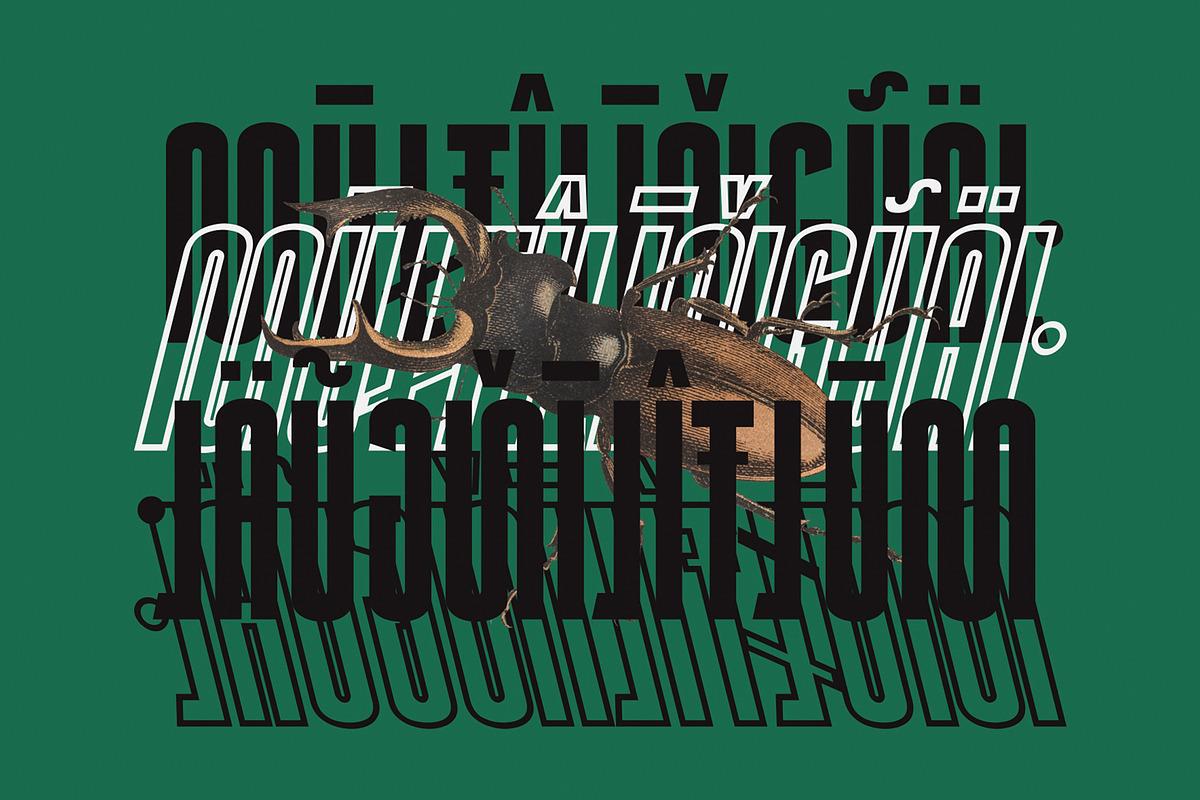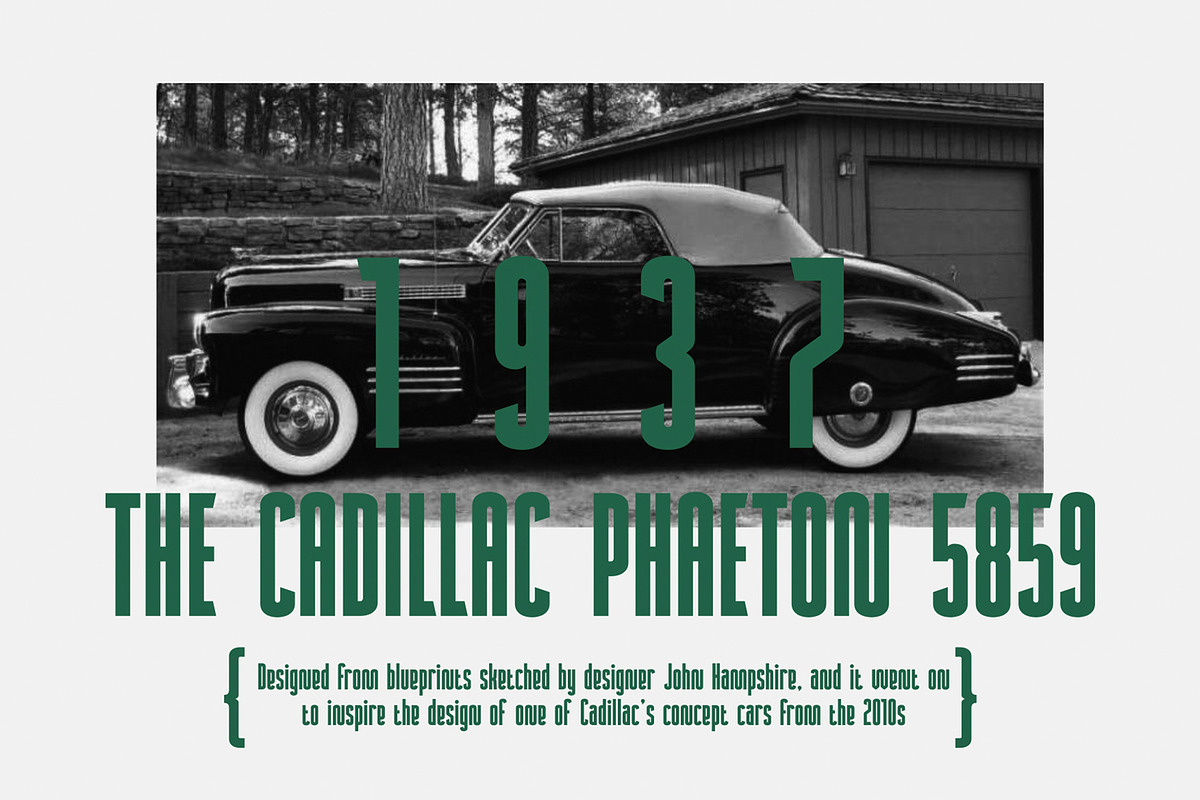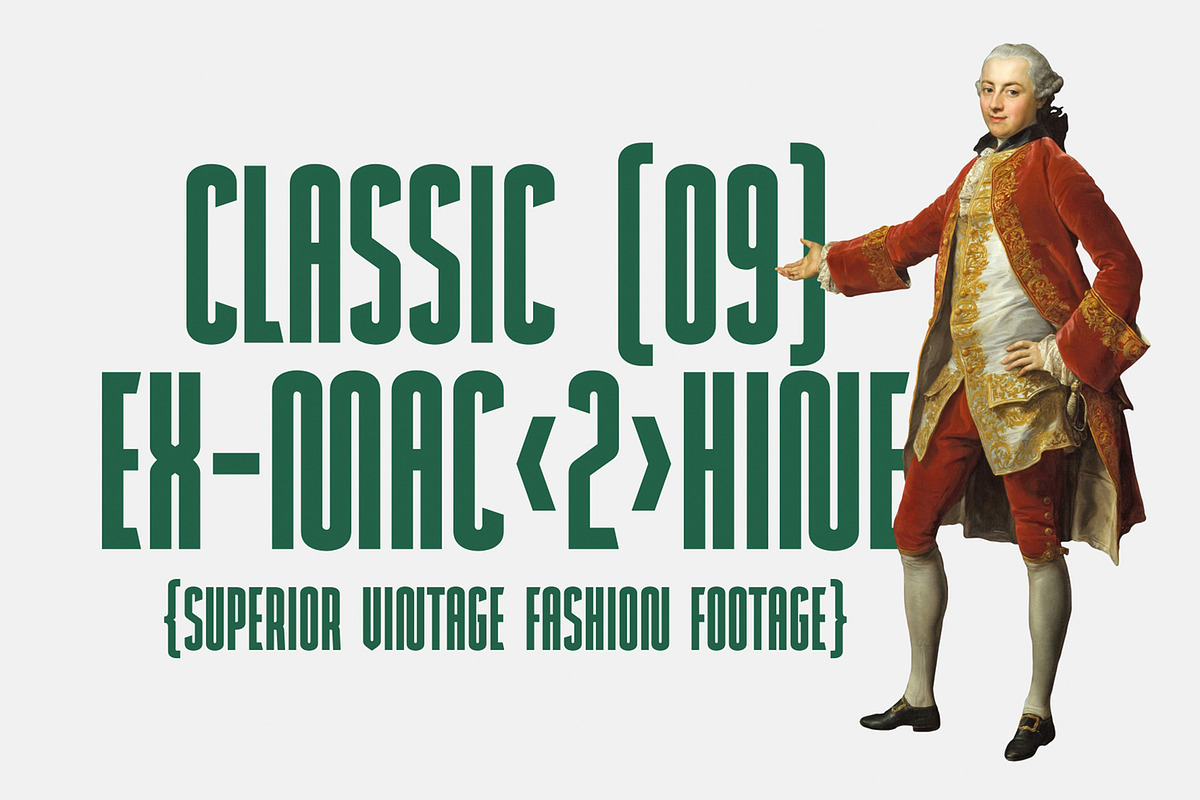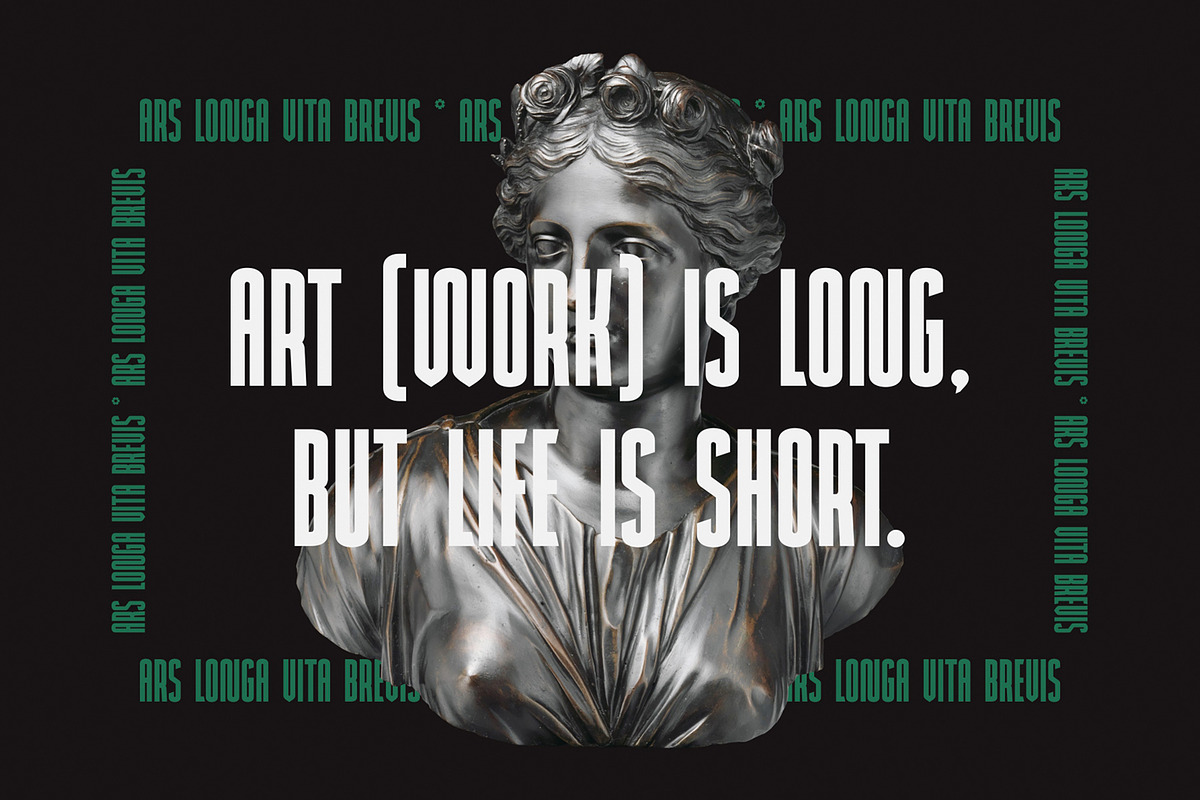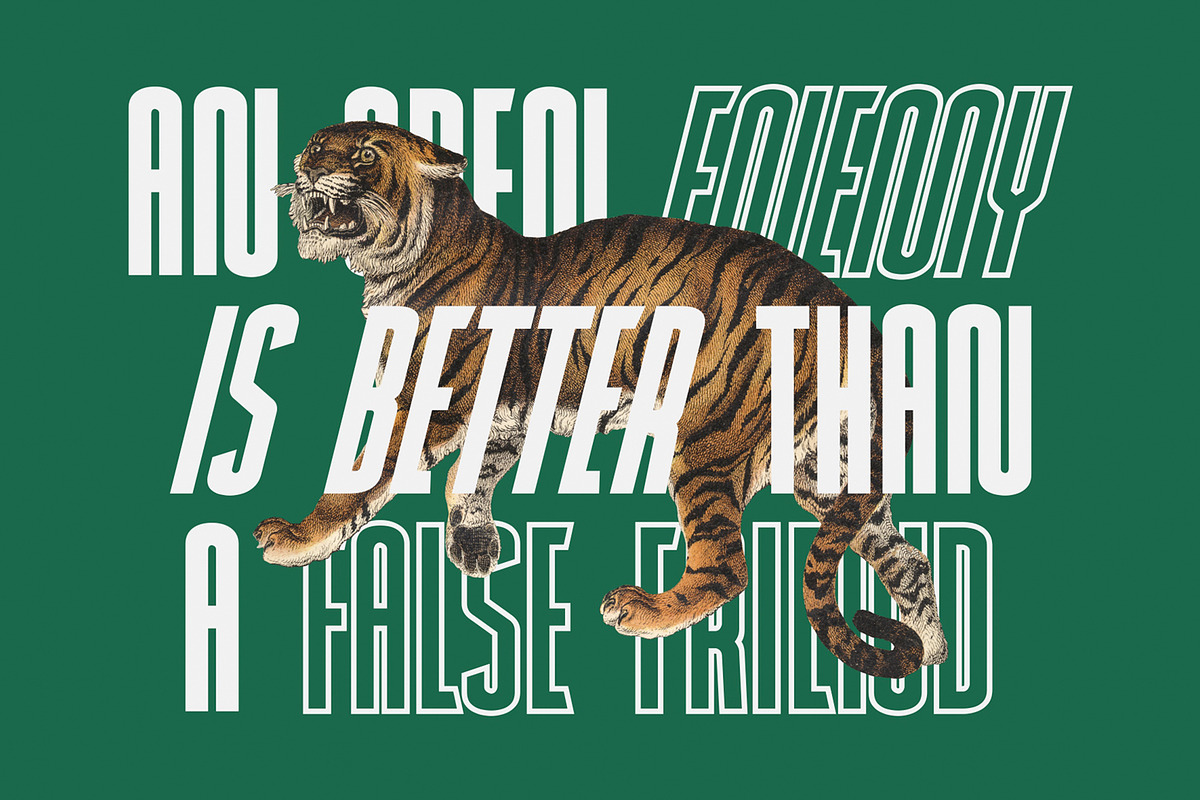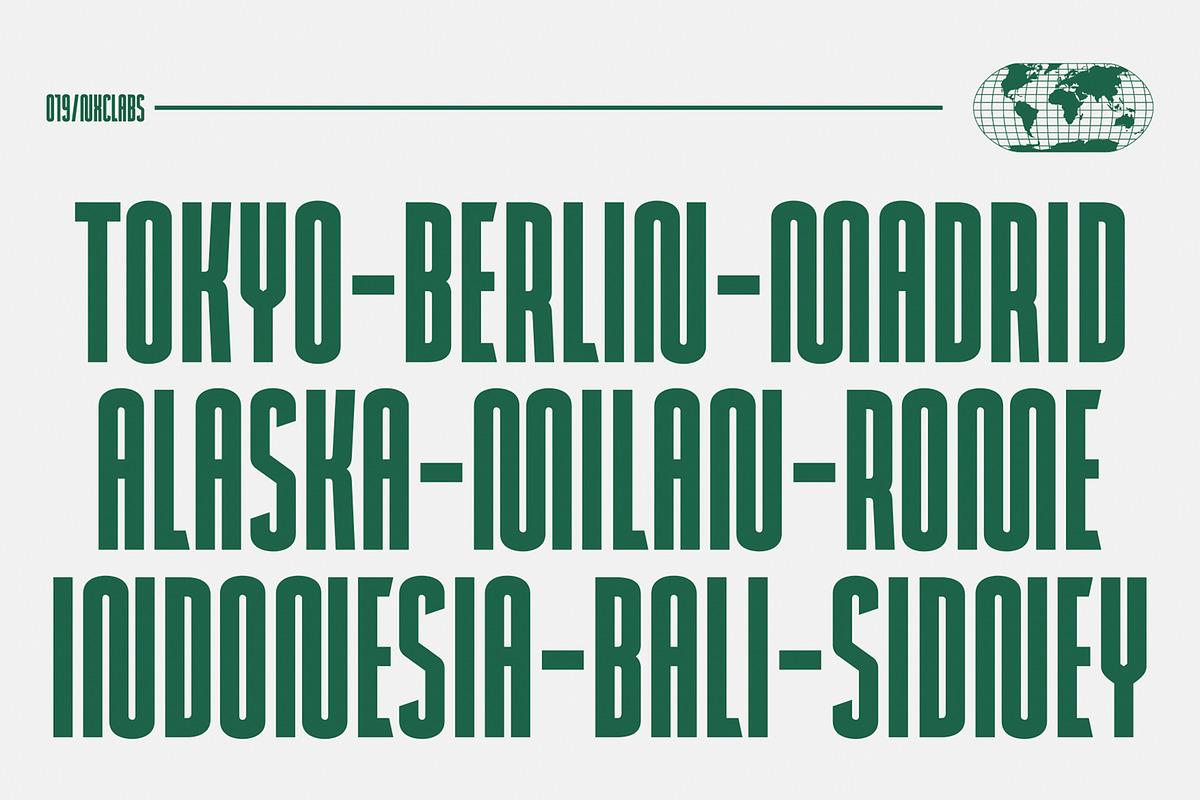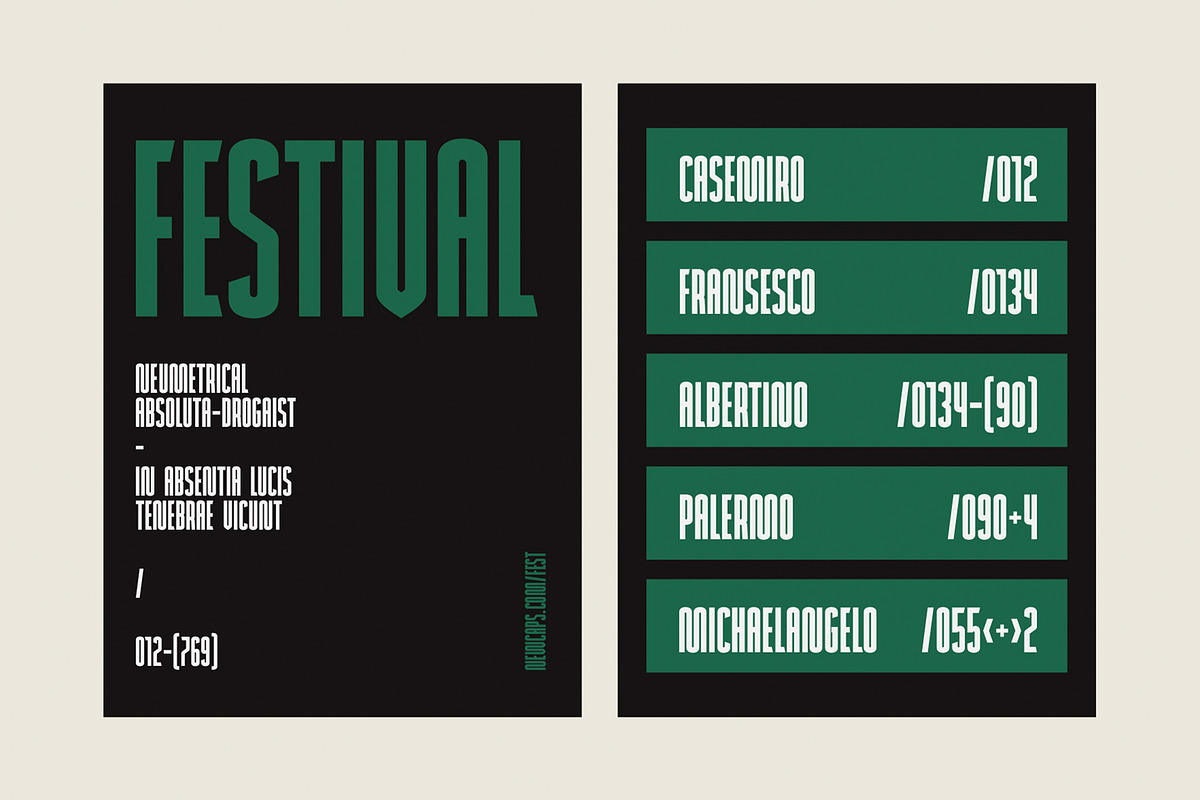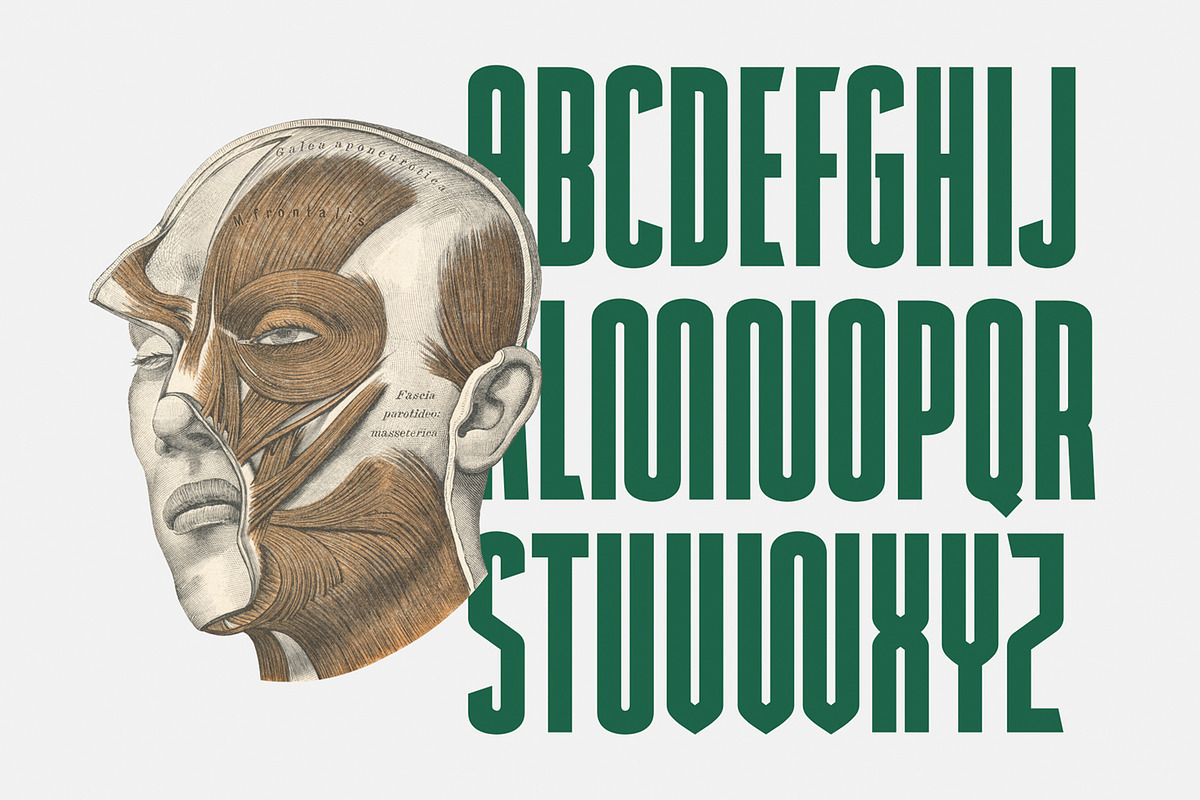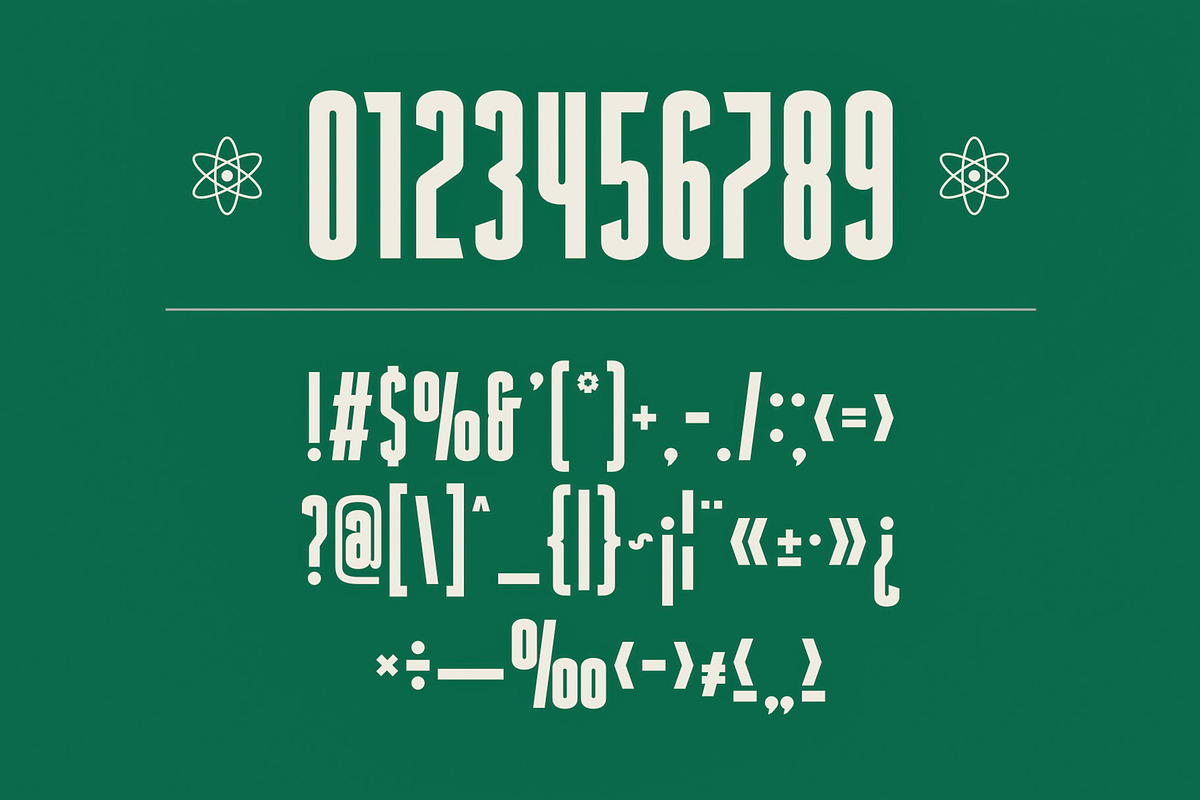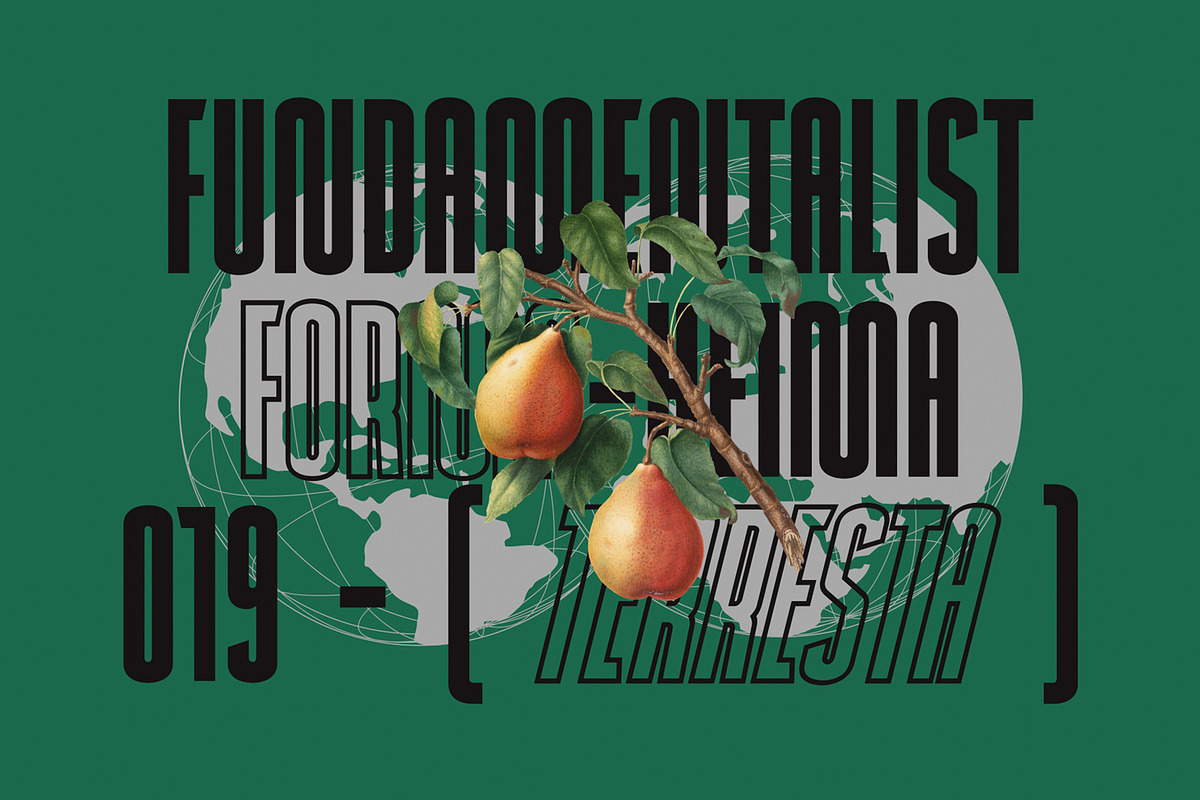
NEWCAPS - Bold Condensed Headline
NEWCAPS is a bold condensed headline display font that features lowercase letters. With this bold typeface, you can be even more expressive in your design projects. It is perfect for headline, billboard, magazines, website, titles, poster, branding, and logos. With this beautiful font, absolutely you can make your project stand out from the rest. See the previews above to get some inspiration on how to use them.
- 4 Styles: Regular, Slant, Outline, and Outline Slant
- Contains 228 Glyphs for Each Style (Total: 912 Glyphs)
- Uppercase, Lowercase, Numeral, Punctuation & Symbol
- Multilingual Support. Support for 44 languages: Asu, Bemba, Bena, Chiga, Cornish, Embu, English, Estonian, Filipino, Gusii, Indonesian, Kabuverdianu, Kalenjin, Kamba, Kikuyu, Kinyarwanda, Luo, Luyia, Machame, Makhuwa-Meetto, Makonde, Meru, Morisyen, North Ndebele, Nyankole, Oromo, Quechua, Rombo, Rundi, Rwa, Samburu, Sangu, Shambala, Shona, Soga, Somali, Swahili, Swiss, German, Taita, Teso, Uzbek (Latin), Volapük, Vunjo, Zulu.